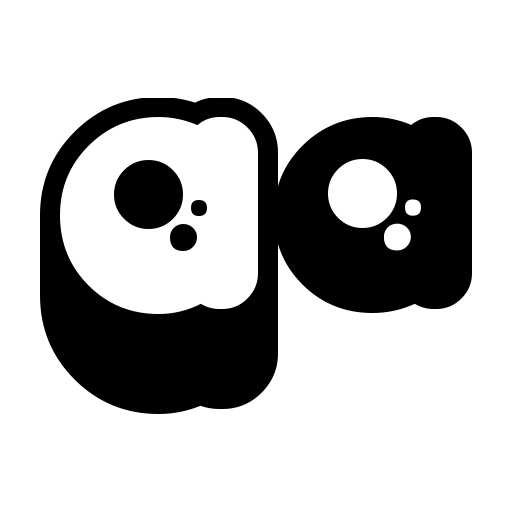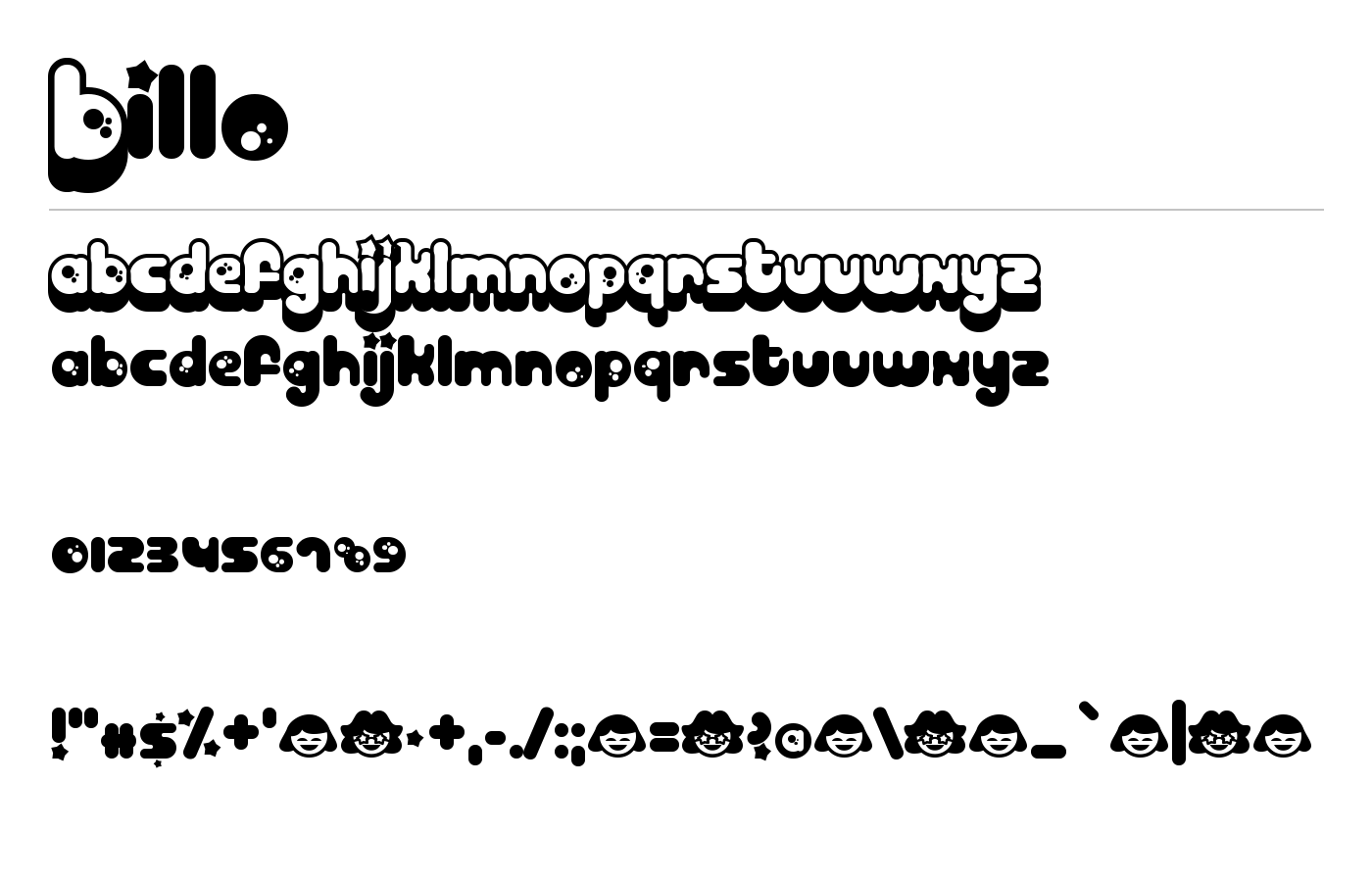
Billo is a playful and bold rounded sans serif font with chunky letterforms and a fun, bubbly style characterized by star and circle decorations within some characters. Its friendly and whimsical appearance makes it perfect for children's designs, party invitations, or any creative project seeking a lively and lighthearted vibe. The font’s thick weight and compact spacing ensure excellent visibility, especially for headlines and logos.
Billo Font